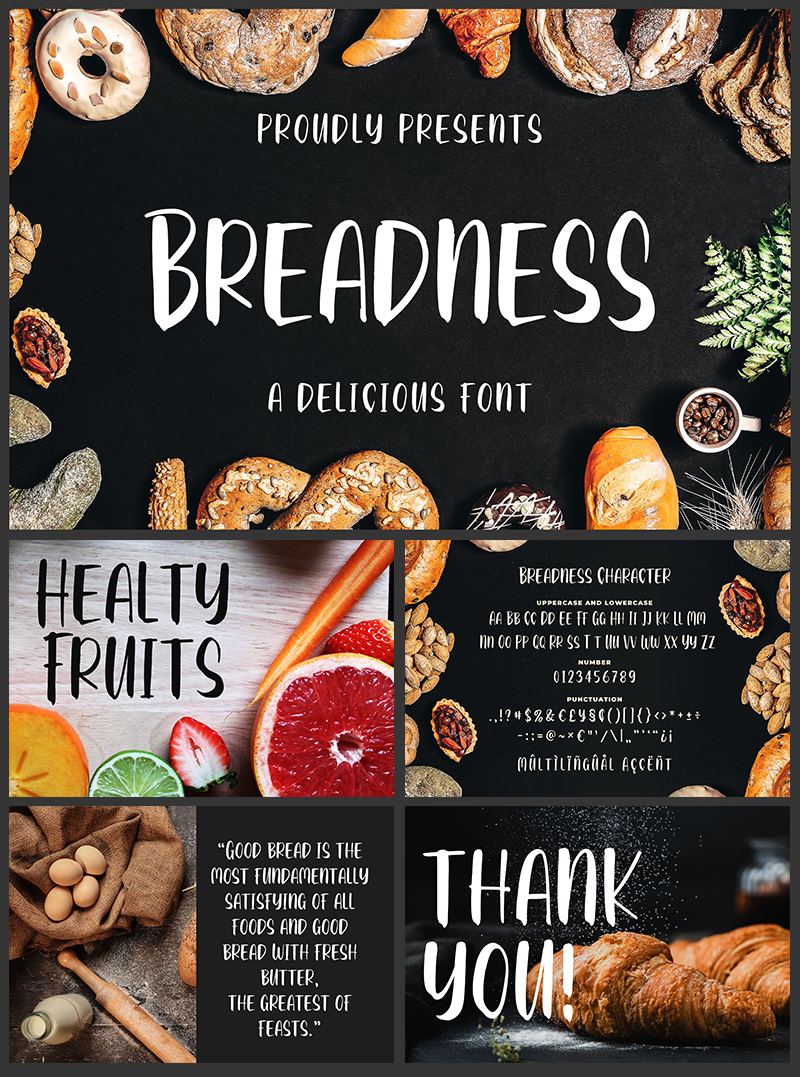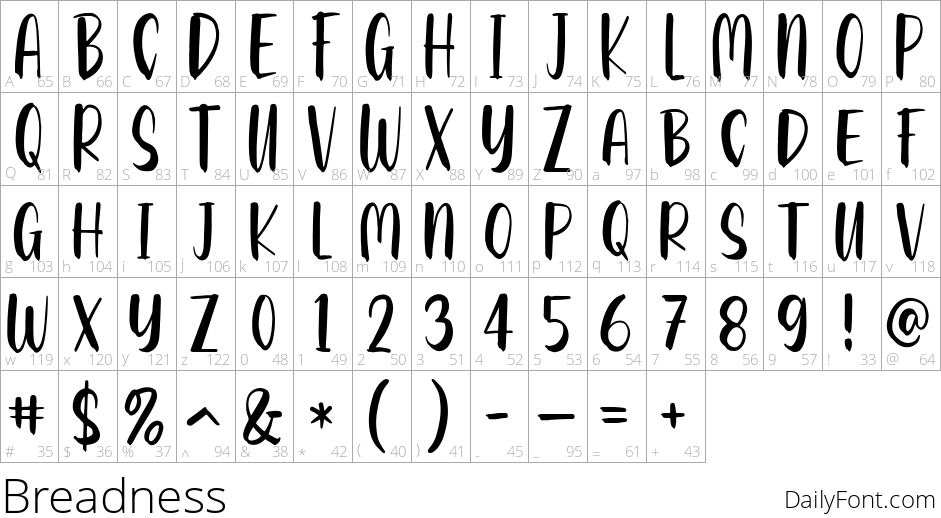
Breadness
Breadness is a bold, brush-marker style typeface from Blankids Studio, with thick, uneven strokes that look drawn with a dry marker or brush pen rather than a clean vector line - a good match for its bread-and-bakery theme.
Every letter in Breadness is a single capital-style form, but the uppercase and lowercase keys each map to a different stylistic variant of that letter (see the two distinct treatments of A, B, C, and so on across the character map above). Typing in mixed case gives natural-looking handwriting variation without the font needing a full script/cursive joining system.
The playful, textured feel suits bakery and cafe branding, food packaging, farmers-market signage, and any casual food-and-drink project that wants a hand-lettered look rather than a slick, corporate one. Pair it with a simple grotesque sans for supporting text so the marker texture stays the focal point.